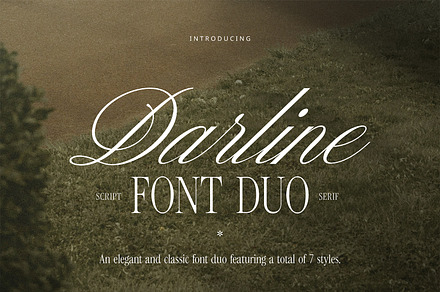
Darline Font Duo
A font duo pairing a flowing script with a clean geometric sans, chosen so the two contrast strongly rather than sitting close together.
Strong contrast between paired fonts is more effective than similarity, since fonts that nearly match read as a mistake rather than a decision.
- Deliberately high contrast pairing
- Alternates and ligatures
Where it works
- Brand identity and logo work
- Packaging and label design
- Wedding and event stationery
- Social and editorial graphics